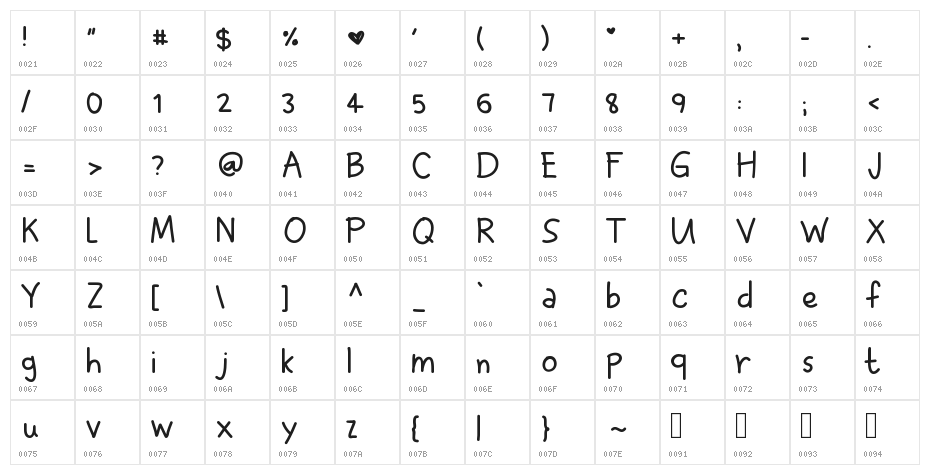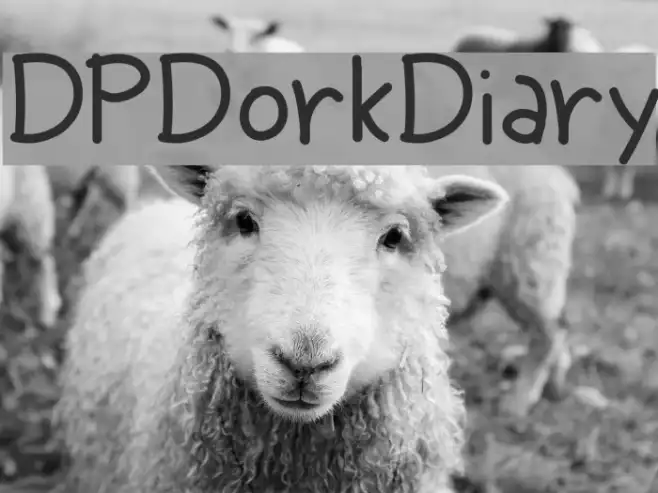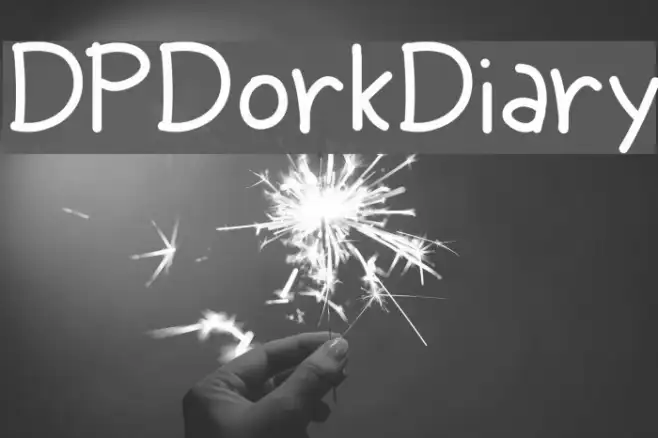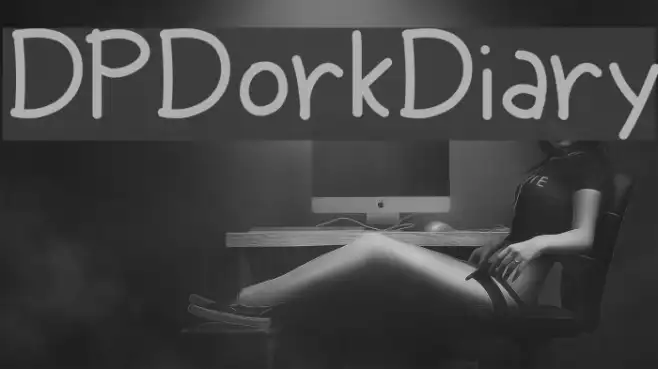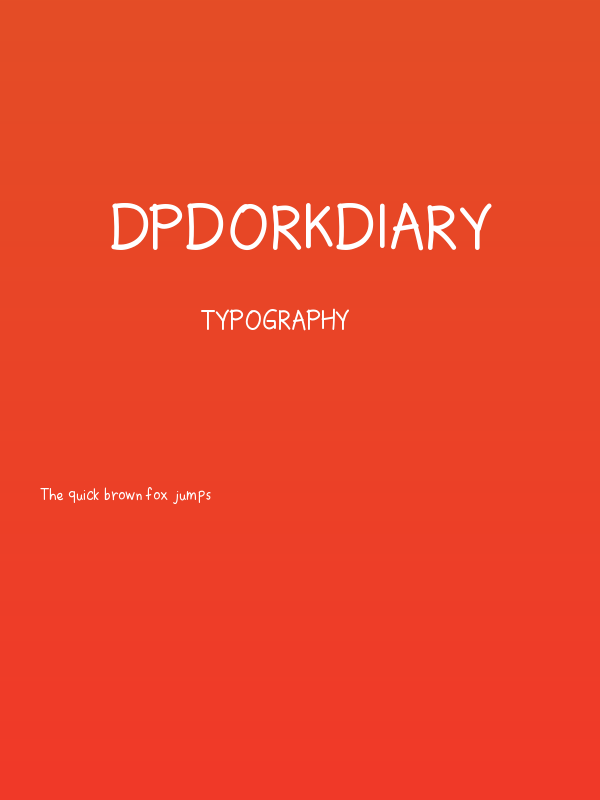
DPDorkDiary Font
DPDorkDiary Description
This playful and whimsical font features a handwritten style with a casual and friendly appearance. The letters are slightly irregular, adding to the charm and informal feel. The uppercase characters are bold and rounded, while the lowercase letters maintain a consistent flow with a slight slant, giving the font a dynamic look. The numerals are clear and easy to read, matching the overall style of the alphabet. Special characters are included, such as punctuation marks and symbols, which are designed to complement the playful nature of the font. This font is perfect for projects that require a personal touch or a fun, lighthearted vibe.